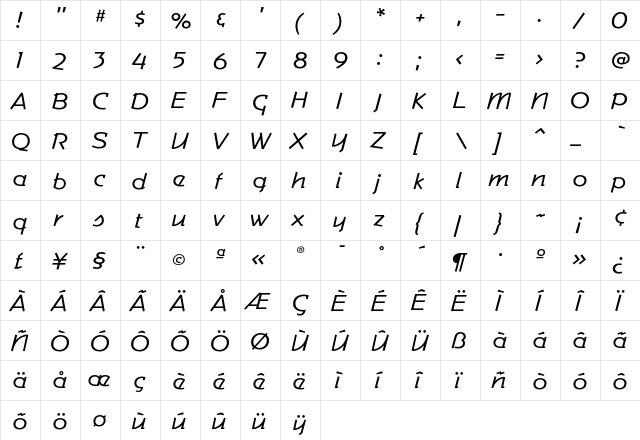
Commerce Lean
Design Context for Commerce Typeface
Commerce takes a measured approach to typography — its balanced proportions and neutral character make it a reliable workhorse for both digital and print work.